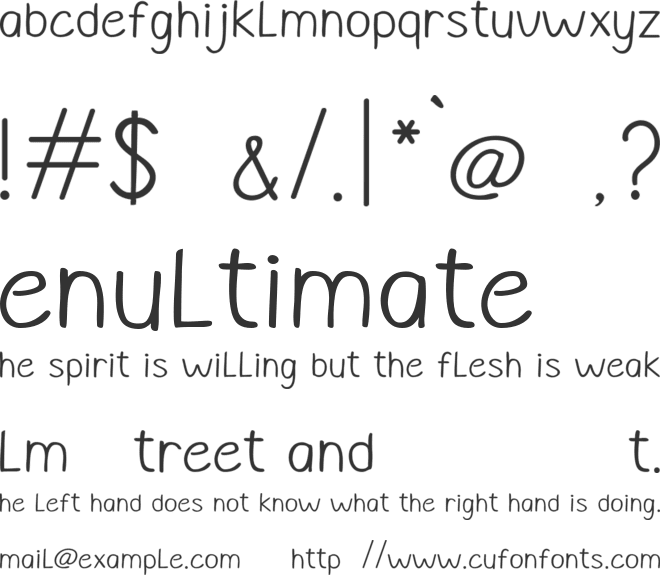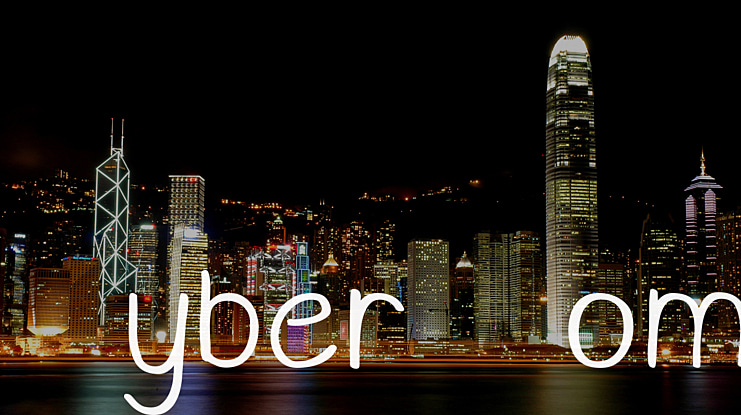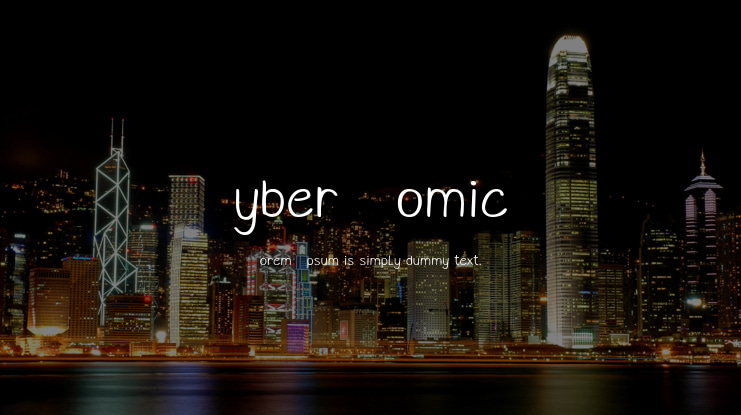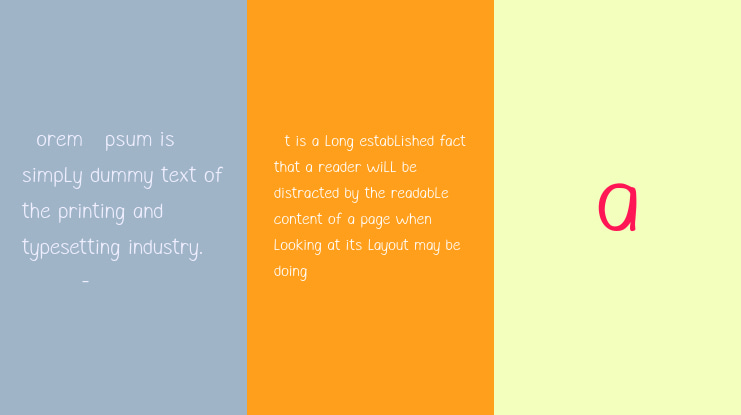
Cyber Komic Font
Cyber Komik is a unique font created using handwriting, so it looks unique, has cute characters, and is simple. This font is suitable for writing comics, informal letters, writing content on videos, advertisements, business cards and other content.
Cyber Komik is also perfect for titles, logos, product packaging, branding projects, magazines, social media, weddings, or simply used to express words over a background.
Cyber Komik also comes with Multi-Language Support.